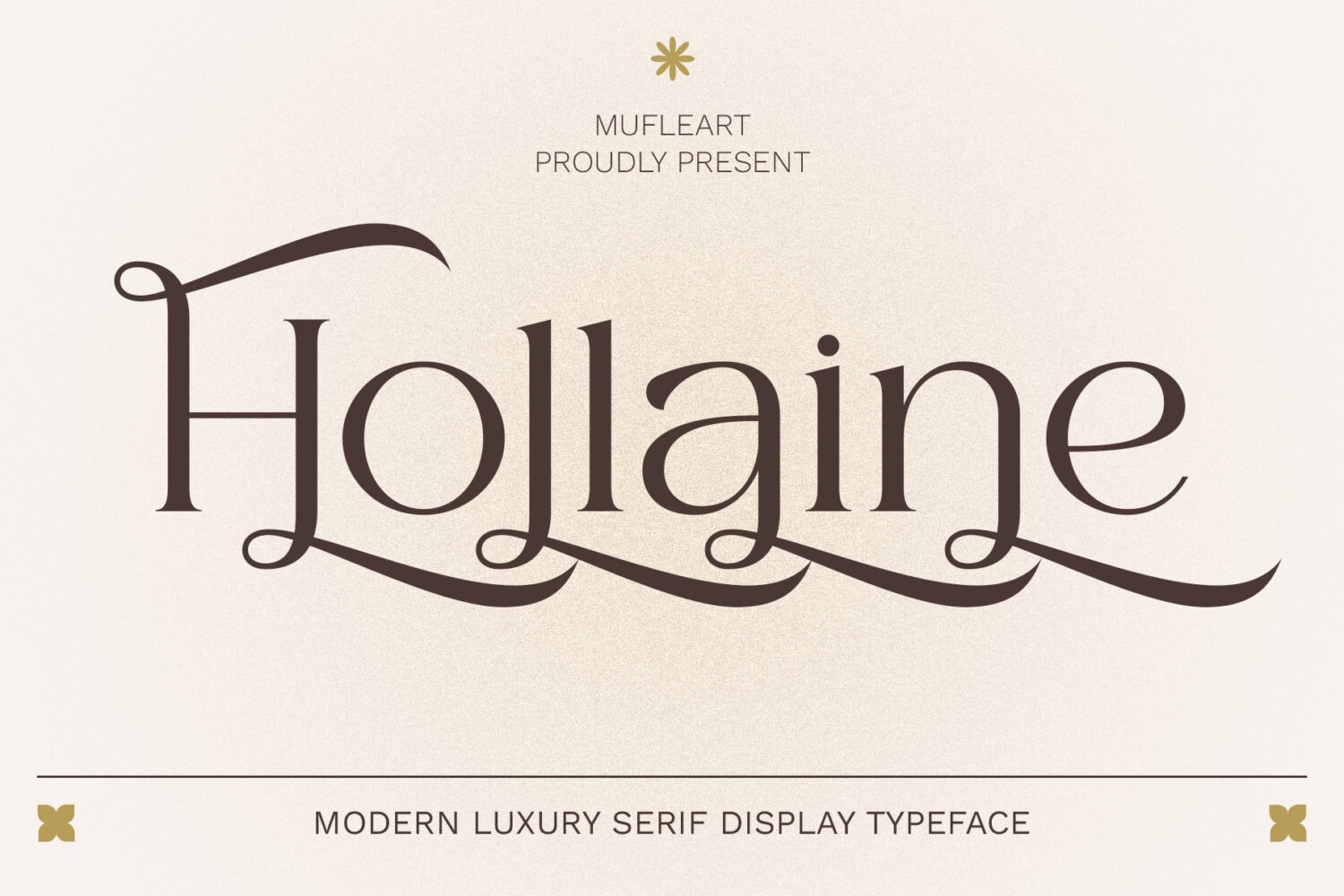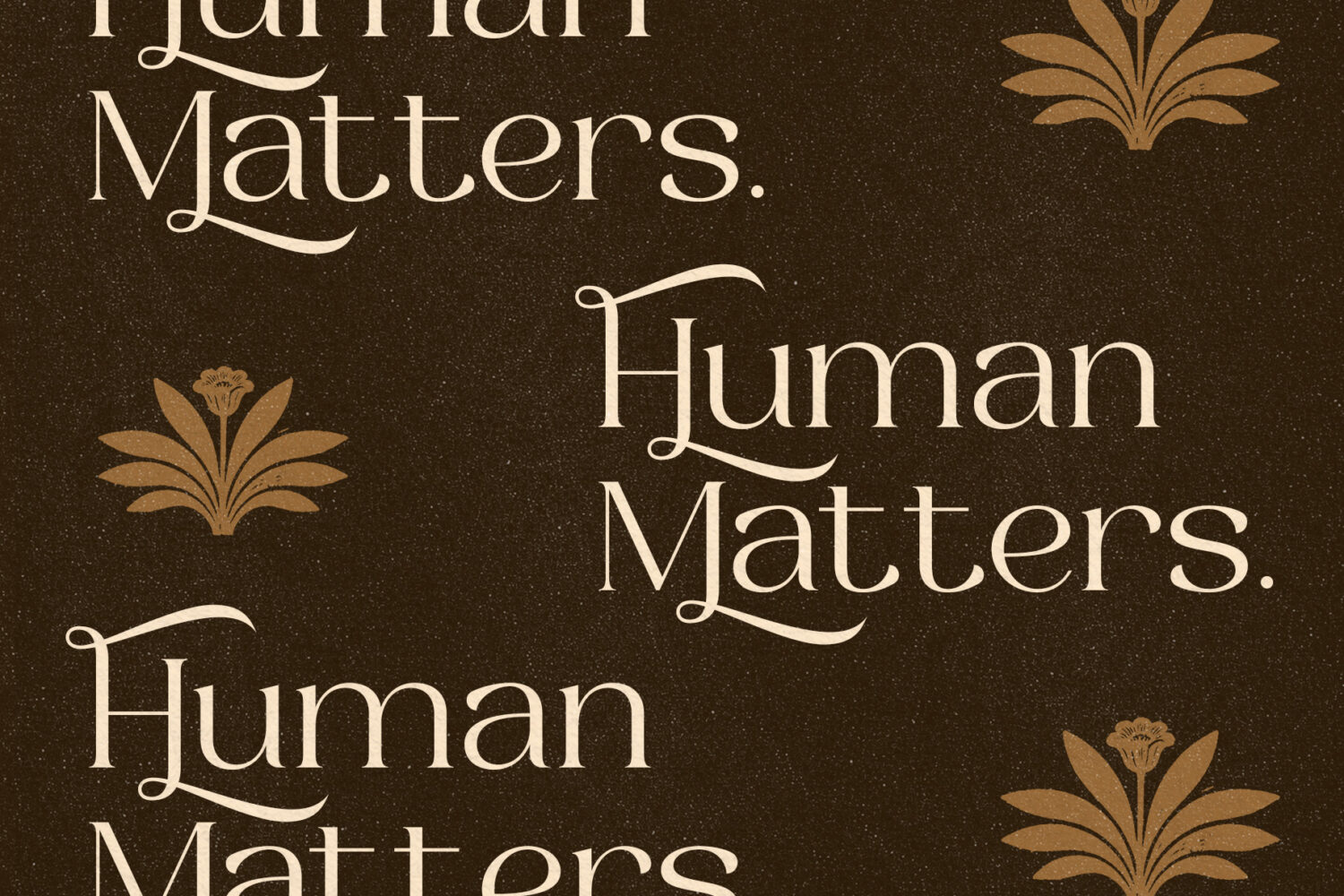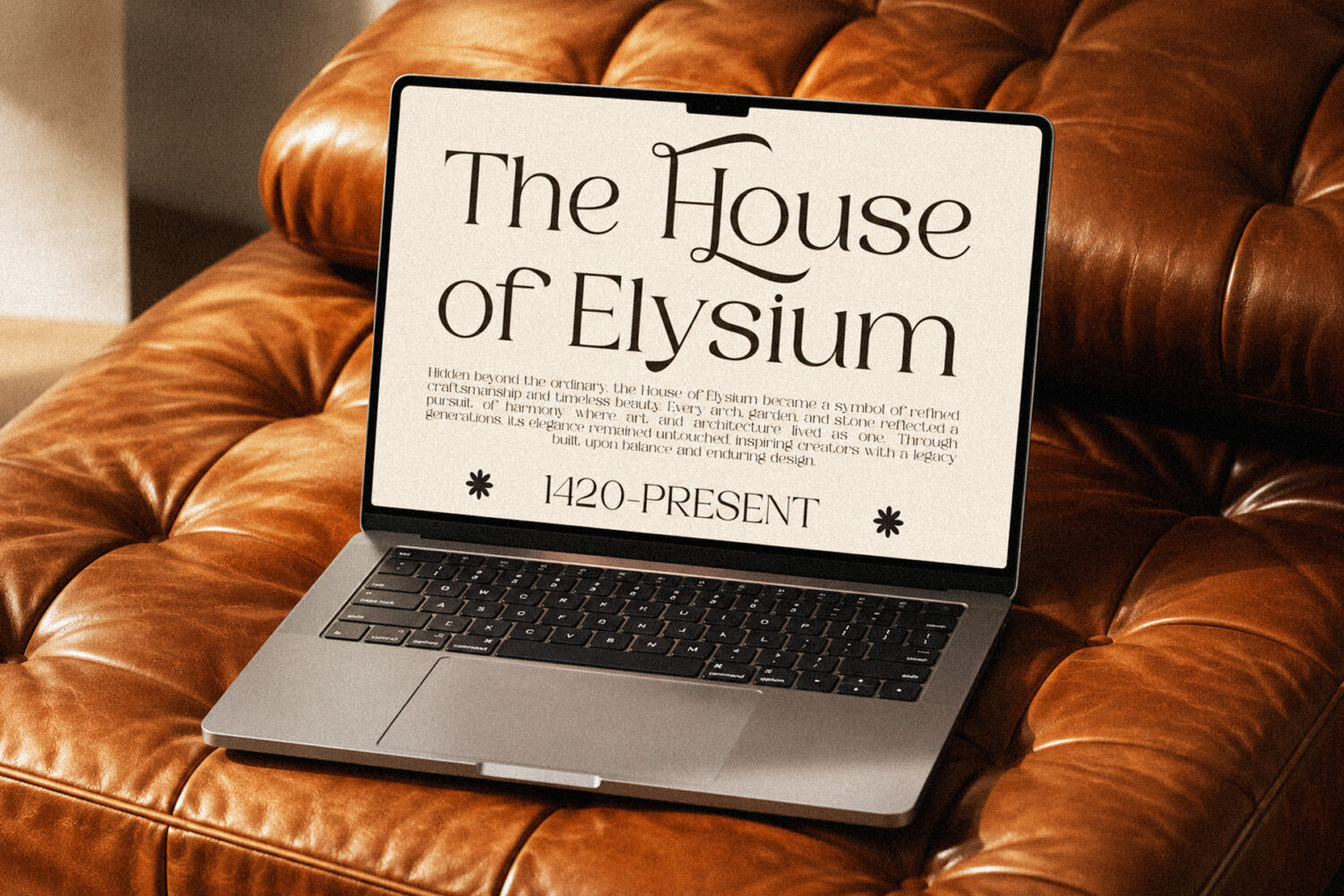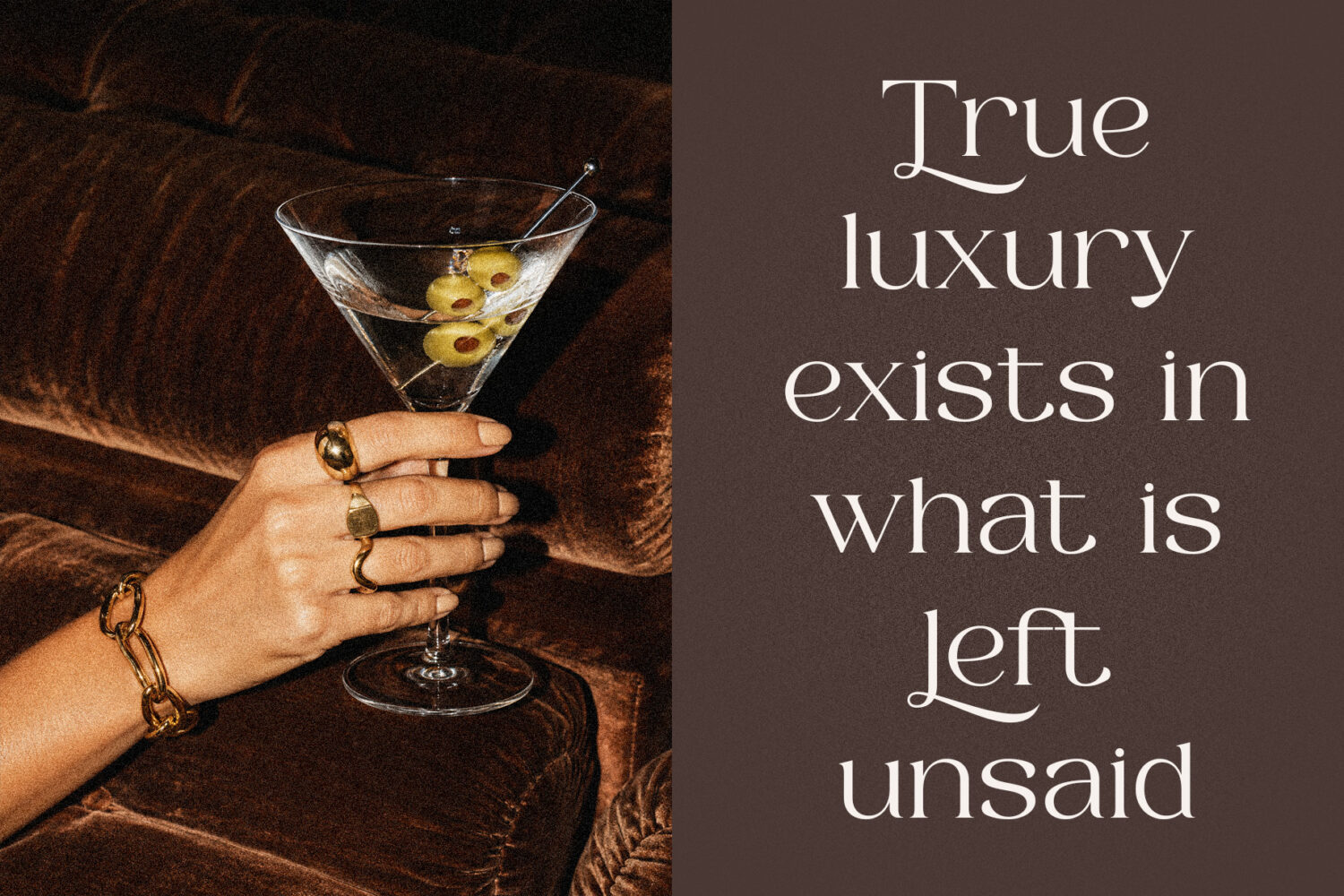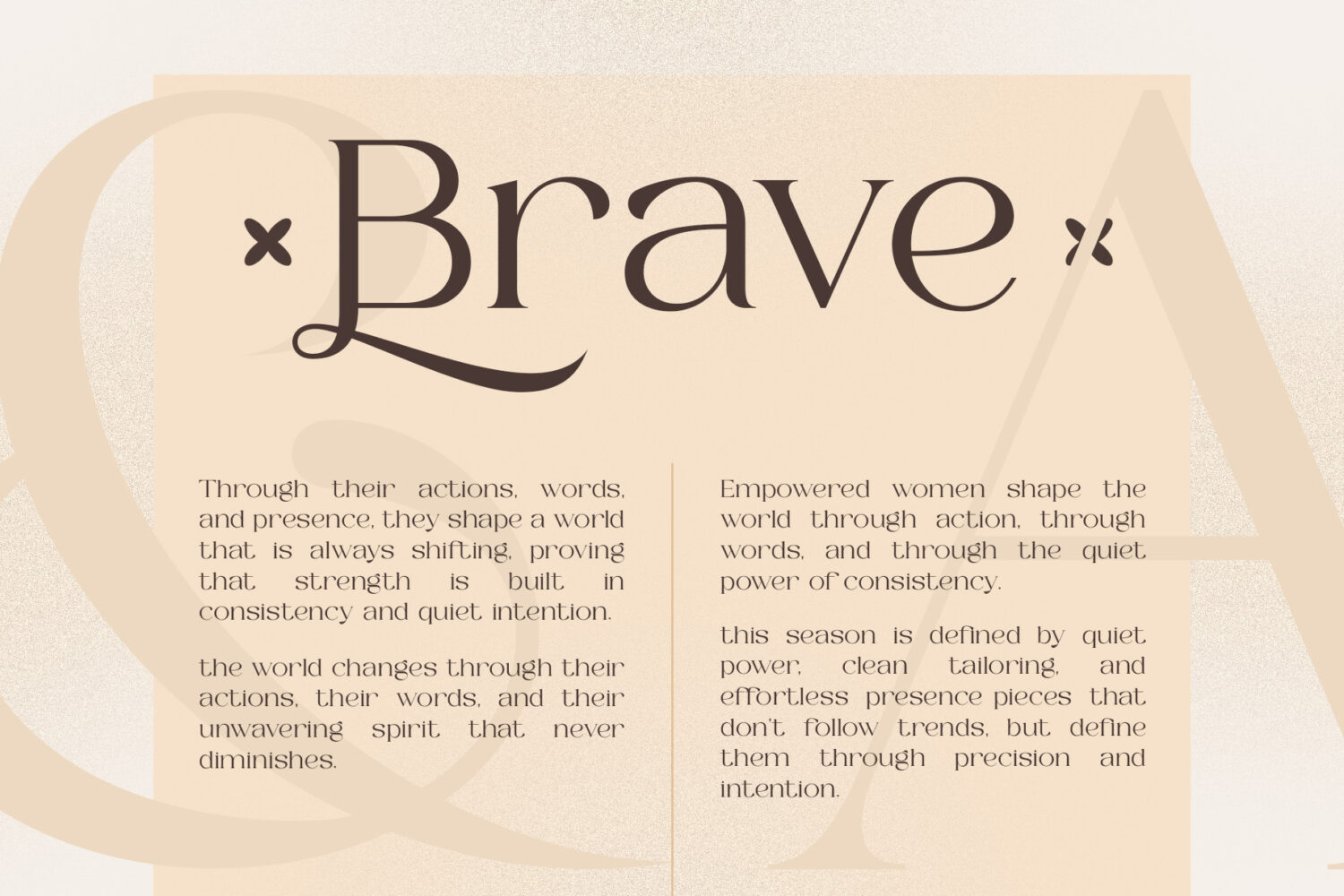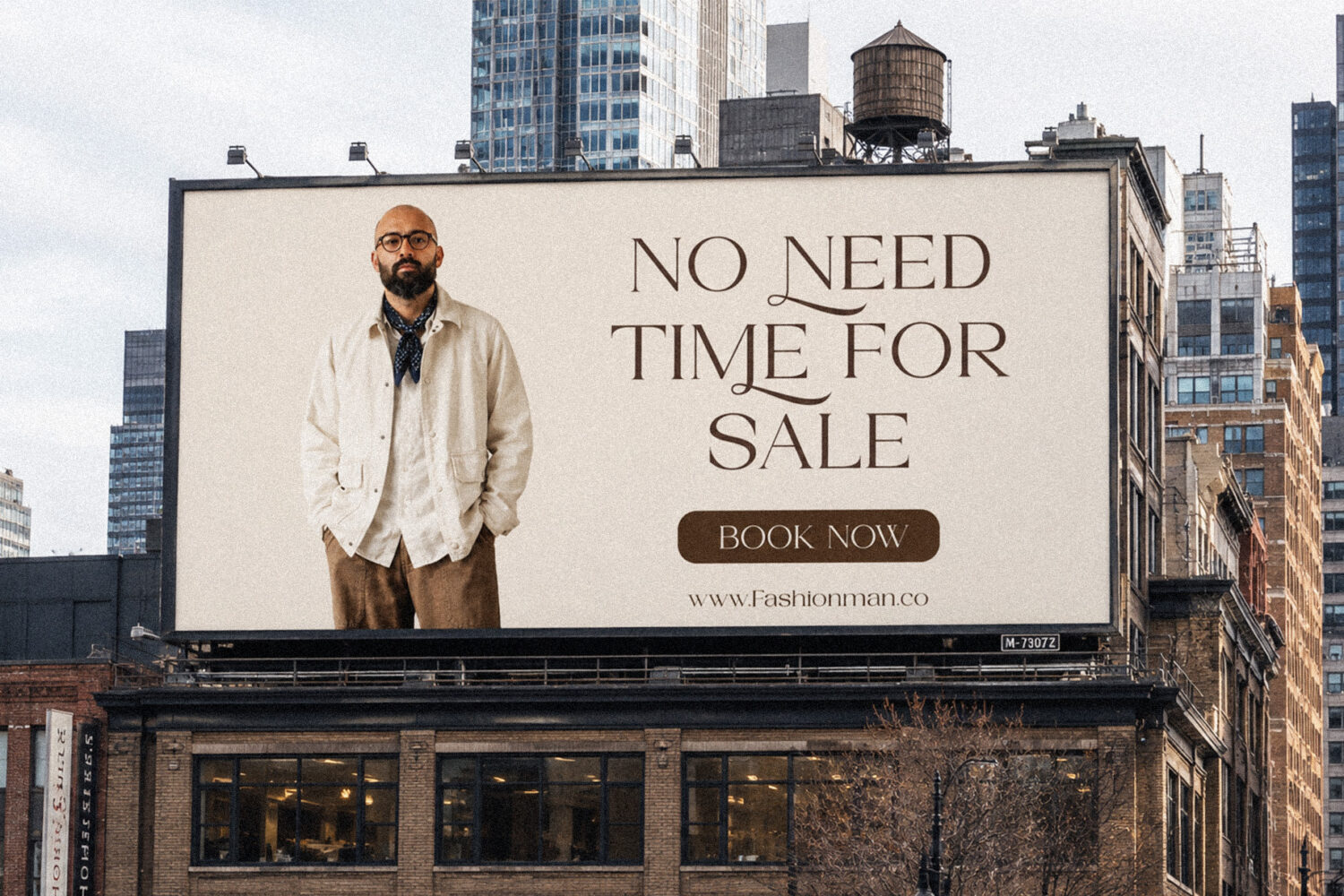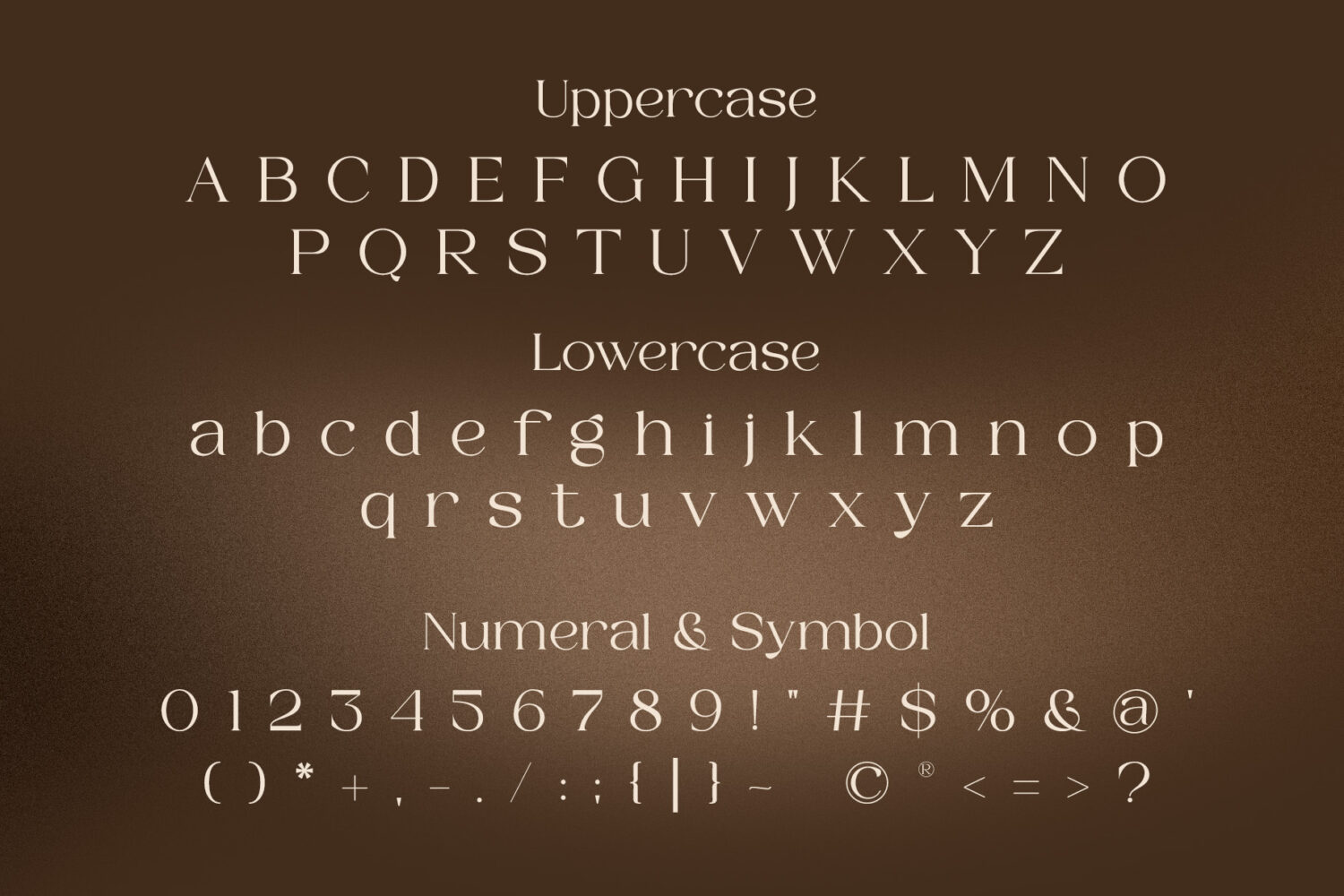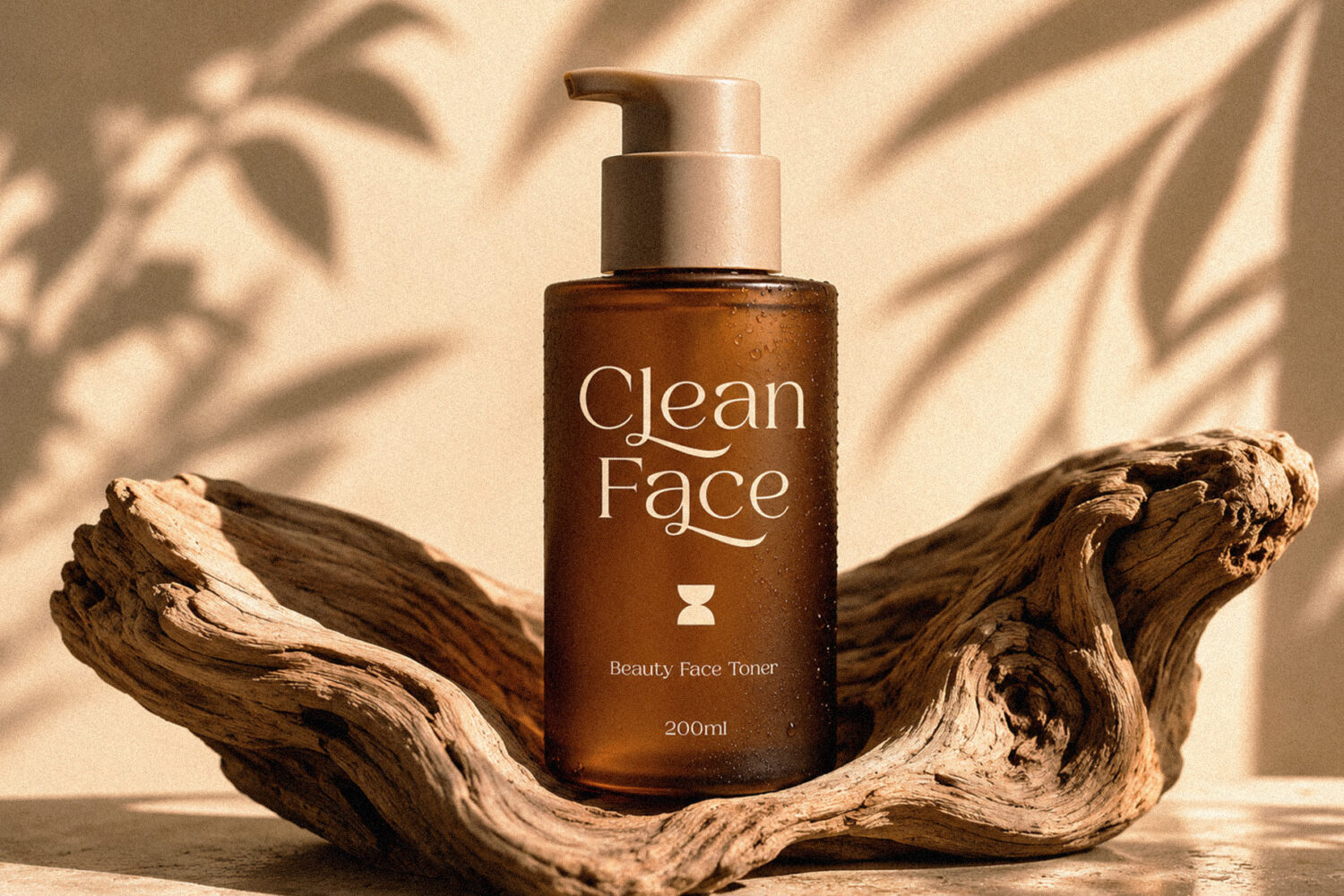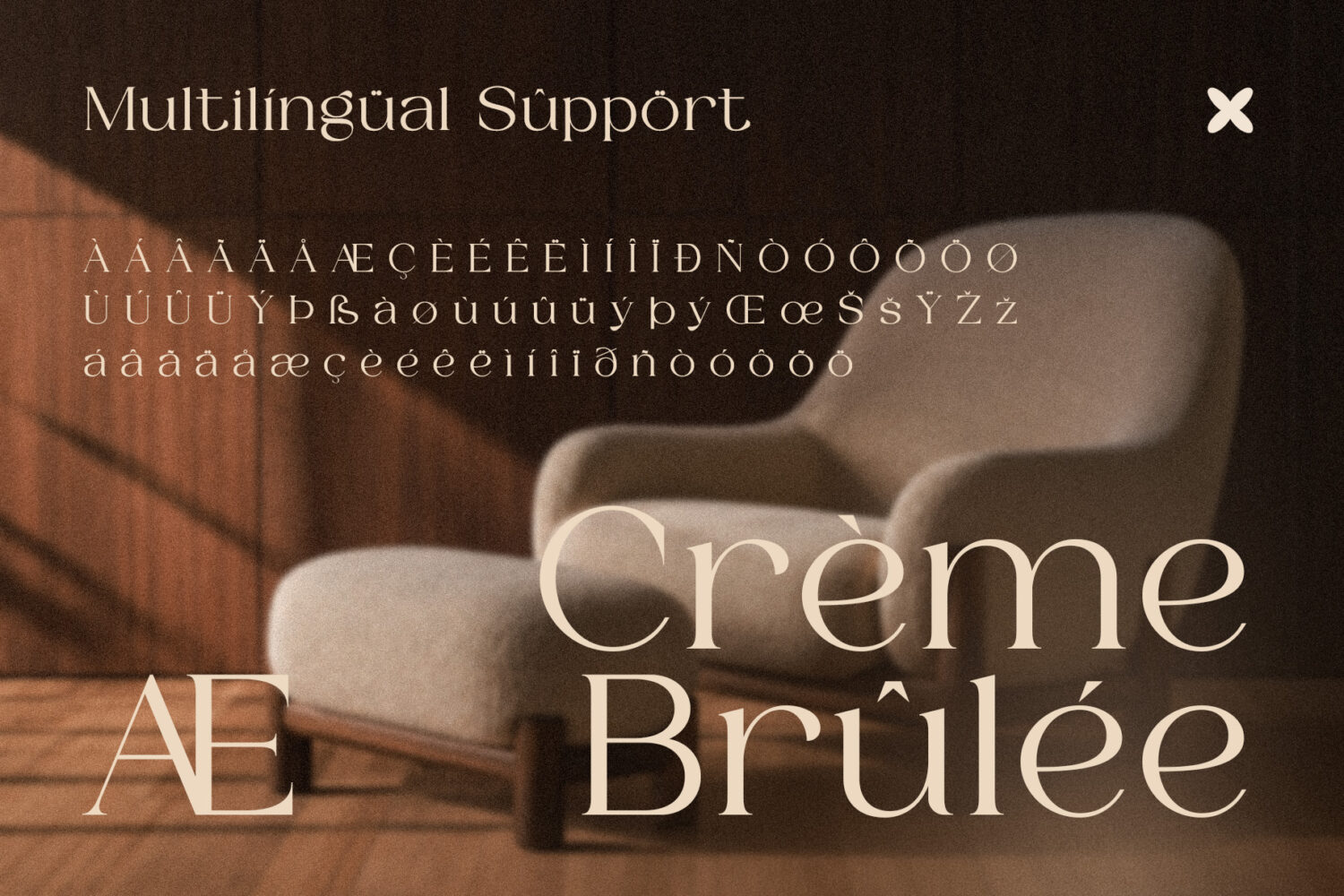
Hollaine
Introducing **Hollaine** the elegant, beautiful, and modern Serif. With its modern and minimalist look, Hollaine brings a luxurious, classy, ​​and clean style to your projects such as websites, modern logos, brand identities, social media quotes, wedding stationery, magazines, and more!
Hollaine features unique and classy capital letters A to Z and also comes with unique alternates making Hollaine a beautiful font that can be customized for various projects and jobs you want.
– Alternates
Hollaine – Modern Luxury Serif Typeface